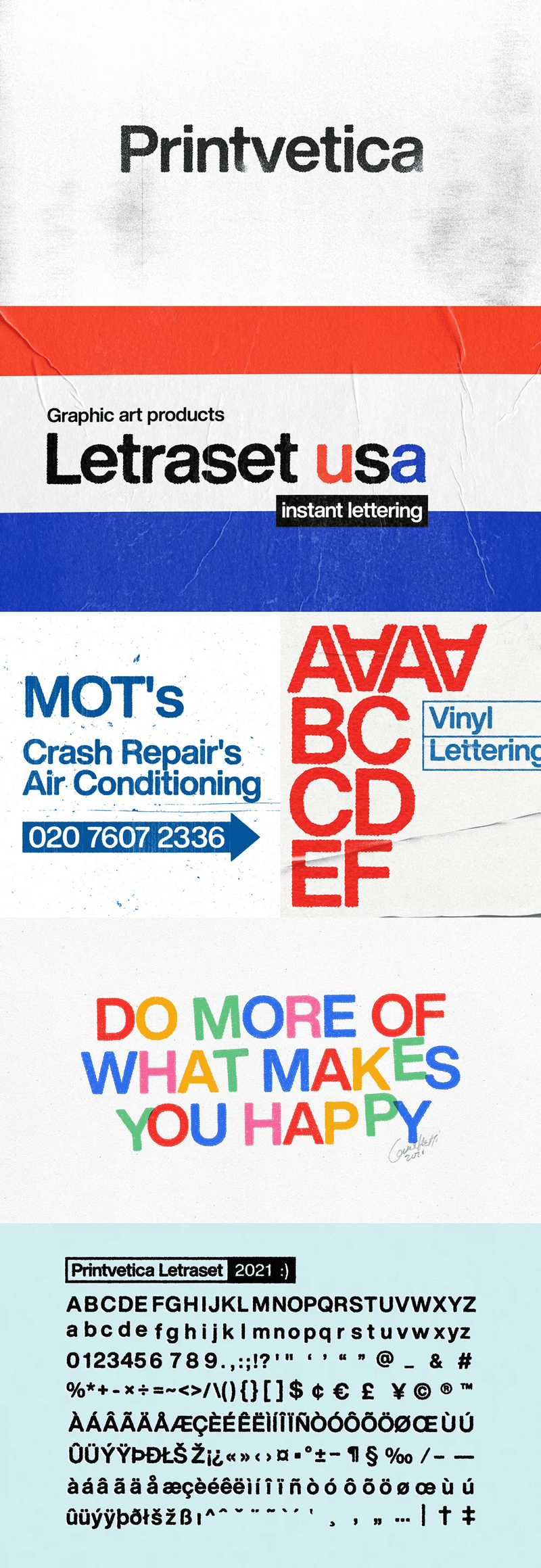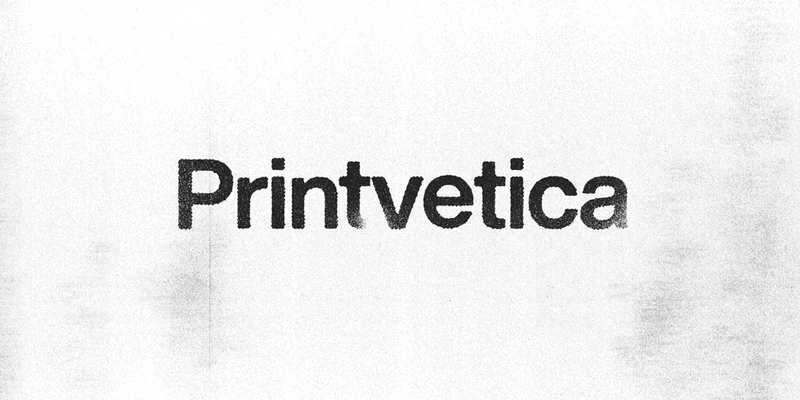
Printvetica is a typeface with an old fashion look based on old Letraset and posters that is perfect for vintage & retro designs. Find out more Vintage Fonts.